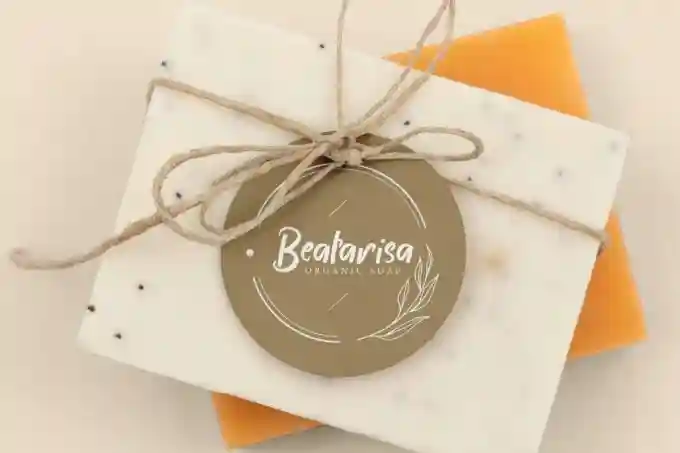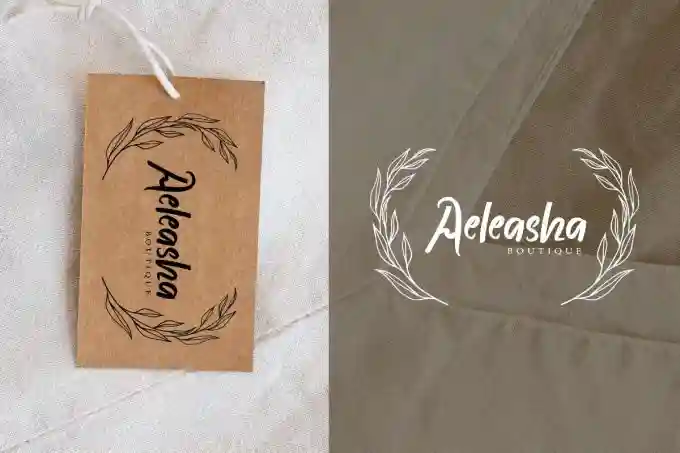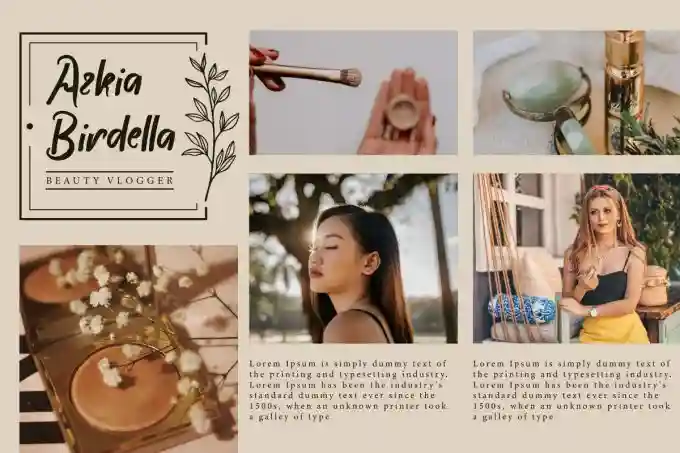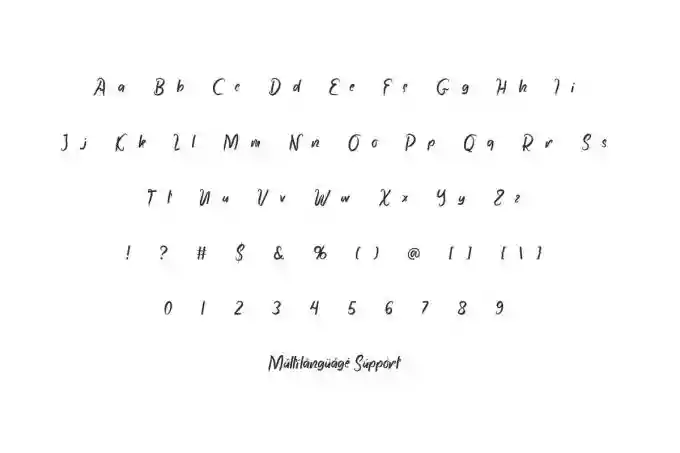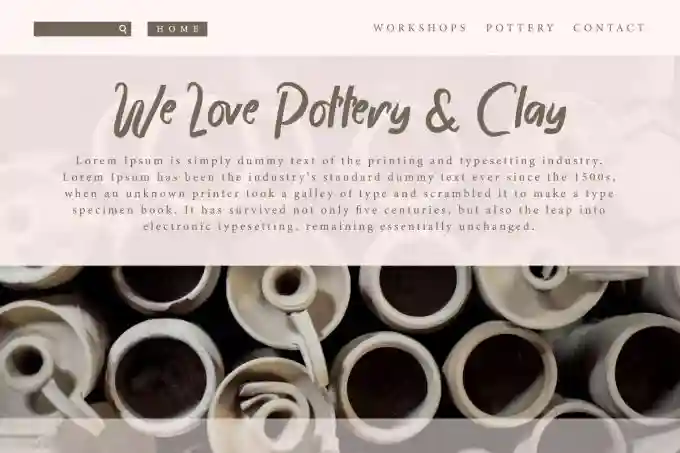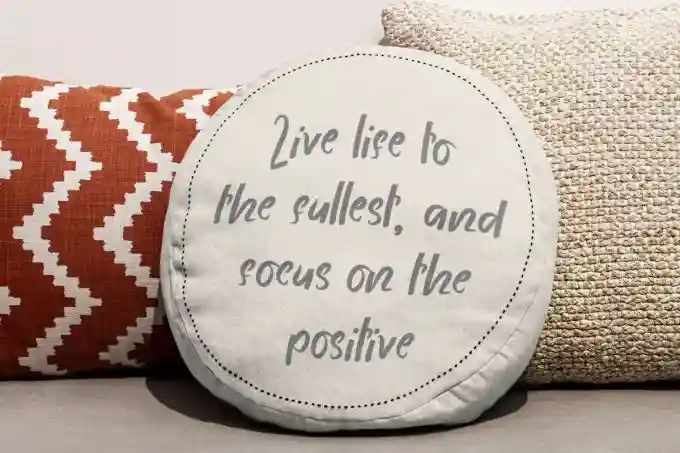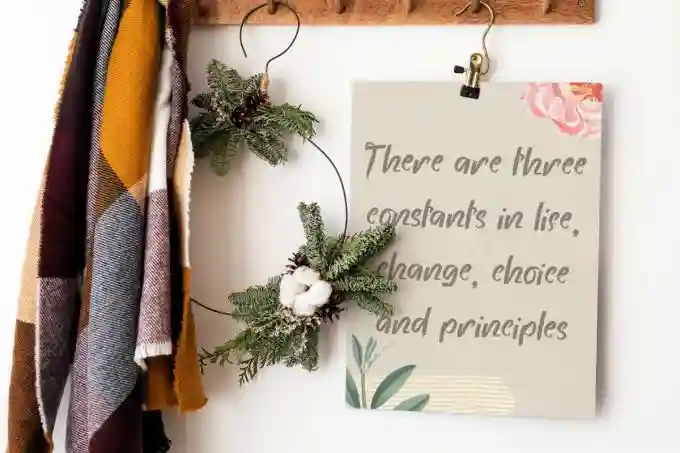
Cinnamon Blossoms – Display Font
Cinnamon Blossoms – A Sweet and Whimsical Display Handwriting Font for Creative Projects
Add Warmth and Personality to Your Designs with a Handwritten Font Full of Charm
Introducing Cinnamon Blossoms, a delightful handwriting display font that blends playful energy with gentle elegance. Designed to mimic natural handwriting with a soft, artistic flair, this font is perfect for adding a sweet, personal touch to your designs.
Cinnamon Blossoms Font is a curly handwriting display font with cute style designed by VinType Studio. This font has thick lines that have a unique and natural look like handwriting that will blend in perfectly with any designs you create, such as brand logo, brochure, business card, custom design, frame art, invitation, label, packaging design, poster, quote, screen printing, signage, stationery, website, and more!
Cinnamon Blossoms Font includes full set of Uppercase and Lowercase Basic Characters, Numerals and Punctuation. This font will attract attention and make your text look stylish. It will be suitable for many industries, such as advertisement, beauty product, event or wedding organizer, fashion, florist, gift bucket, handicrafts, homeware, printing, publishing, spa and salon, etc.